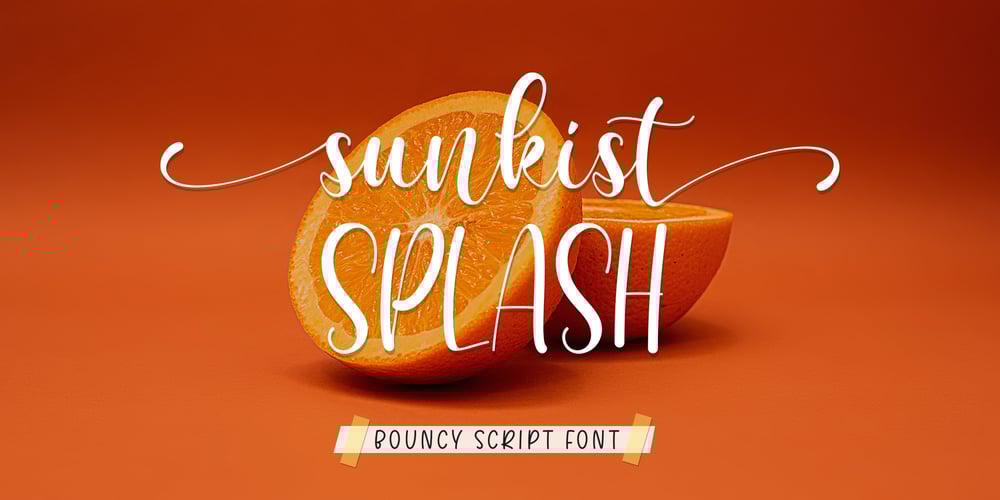
Sunkist Splash
Sunkist Splash font
Sunkist Splash Font Family was designed by Dwi Ahidian and published by Lemonthe. Sunkist Splash contains 1 styles and family package options. Sunkist Splash is clean and beauty bouncy script font. It’s the perfect font for branding, wedding invitations, stationery, photography, social media posts, product packaging, greeting cards, and much more!